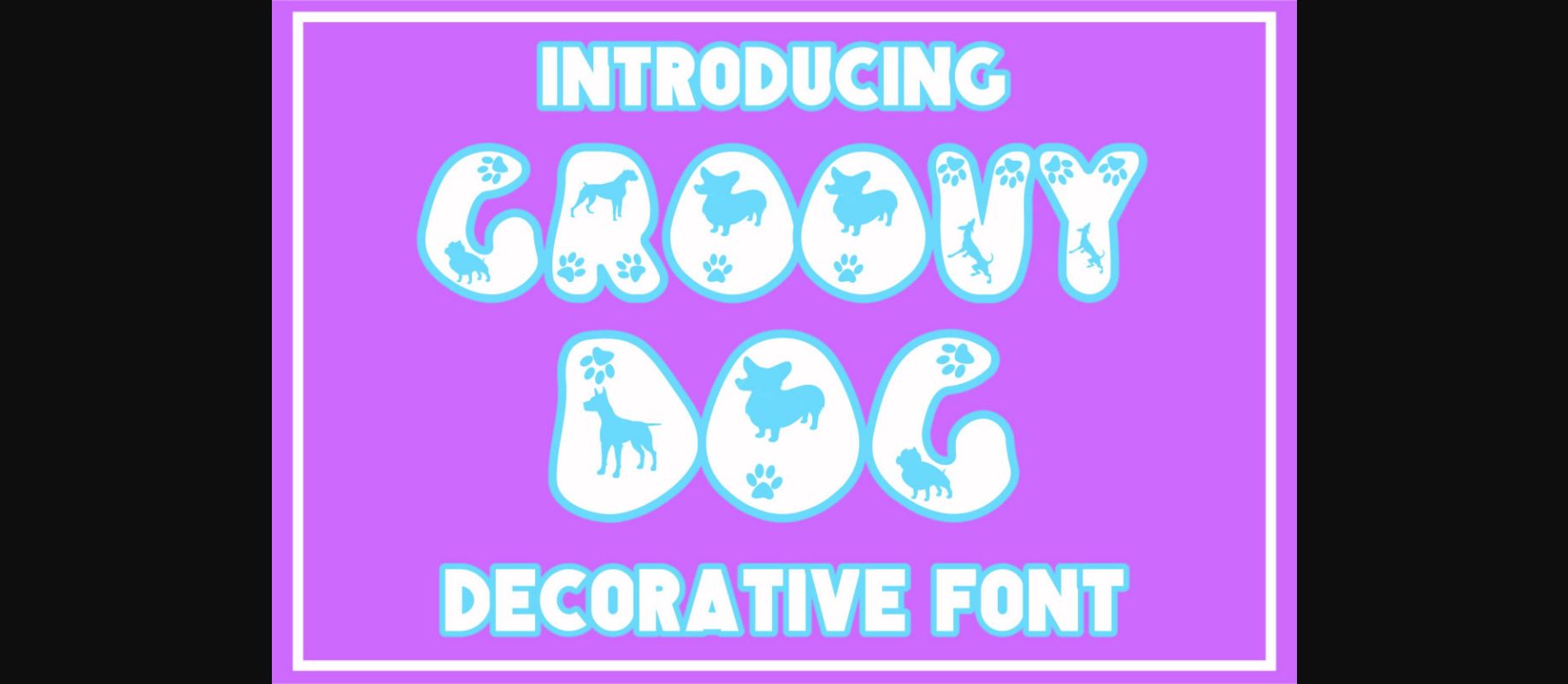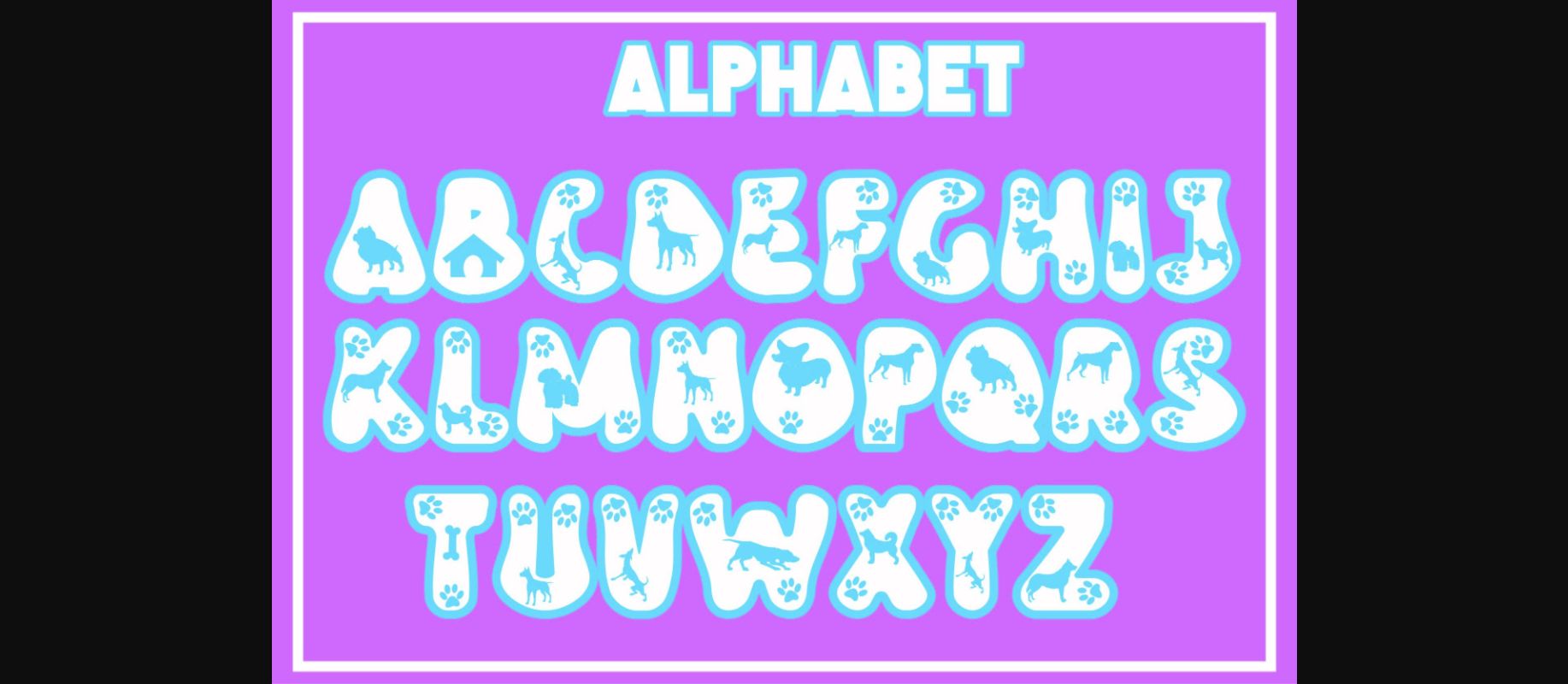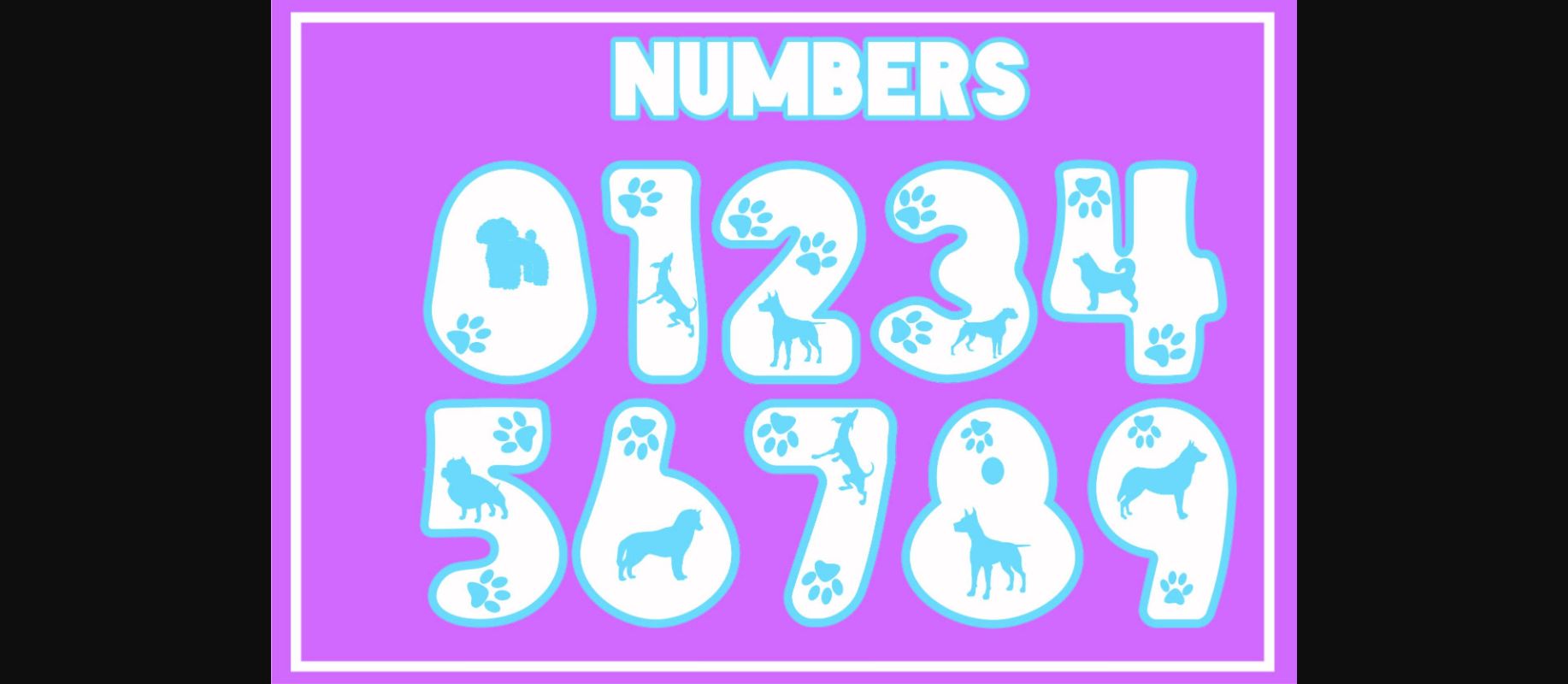
HomeDecorative FontsGroovy Dog Font Decorative Fonts Groovy Dog Font FacebookXPinterestWhatsApp 1 of 5 ... Groovy Dog Font Poster 2... Groovy Dog Font Poster 3... Groovy Dog Font Poster 4... Groovy Dog Font Poster 5... About Groovy Dog Font Groovy Dog is a bold, cool, and fun decorative font. It embodies playfulness and authenticity and is the perfect choice for any children’s activity or school project. DOWNLOAD NOW People also explored Mount Angel Heart Script Font Pinklyez Font Buree Chalk Font Raisahi Font Gangster Font Fishing Beach Font Pumpkin Muffins Font TypeFace Font 298 0 TagsGroovy Dog Font Previous articleBoo Haw FontNext articleHalloween Pumpkin Font LEAVE A REPLY Cancel reply Comment: Please enter your comment! Name:* Please enter your name here Email:* You have entered an incorrect email address! Please enter your email address here Website: Save my name, email, and website in this browser for the next time I comment. Personal Use Free Sui Genesis Personal Use Free Read more about this font Aelten Personal Use Free Read more about this font Hagia Signal Personal Use Free Read more about this font Abuget Free Script Personal Use Free Read more about this font BLOG Fonts That Capture the Spirit of New York City New York City is more than just a place—it’s an experience, a rhythm, a visual language... Modern Sans-Serif Fonts That Brands Love in 2025 Exploring Font Trends Free Fonts Risk: Why Free Fonts Can Be Dangerous for Designers